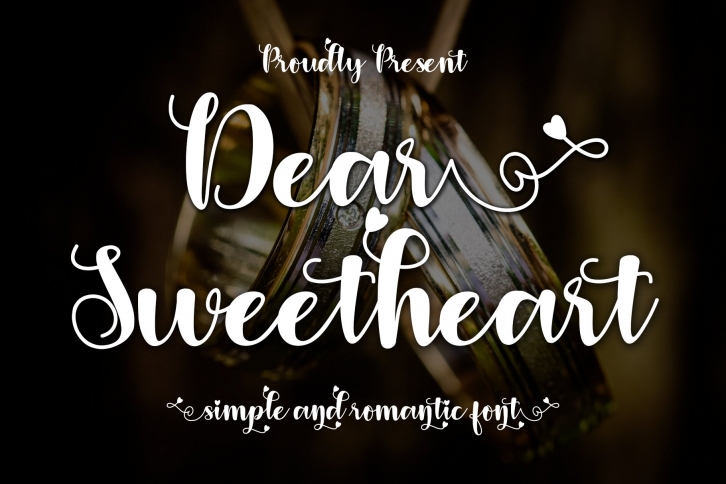
Dear Sweetheart is a great font that was designed by Nox Studio. Imagine the amount of combinations you can create using this font! The archive is 6.32 MB and it was released on December 27, 2021. Dear Sweetheart looks beautiful on wedding invitations, greeting cards, logos, posters, labels, t-shirt designs, logos, business cards and is perfect for use in ink or watercolor works, fashion, magazines, packaging and food menus, children's books and more!